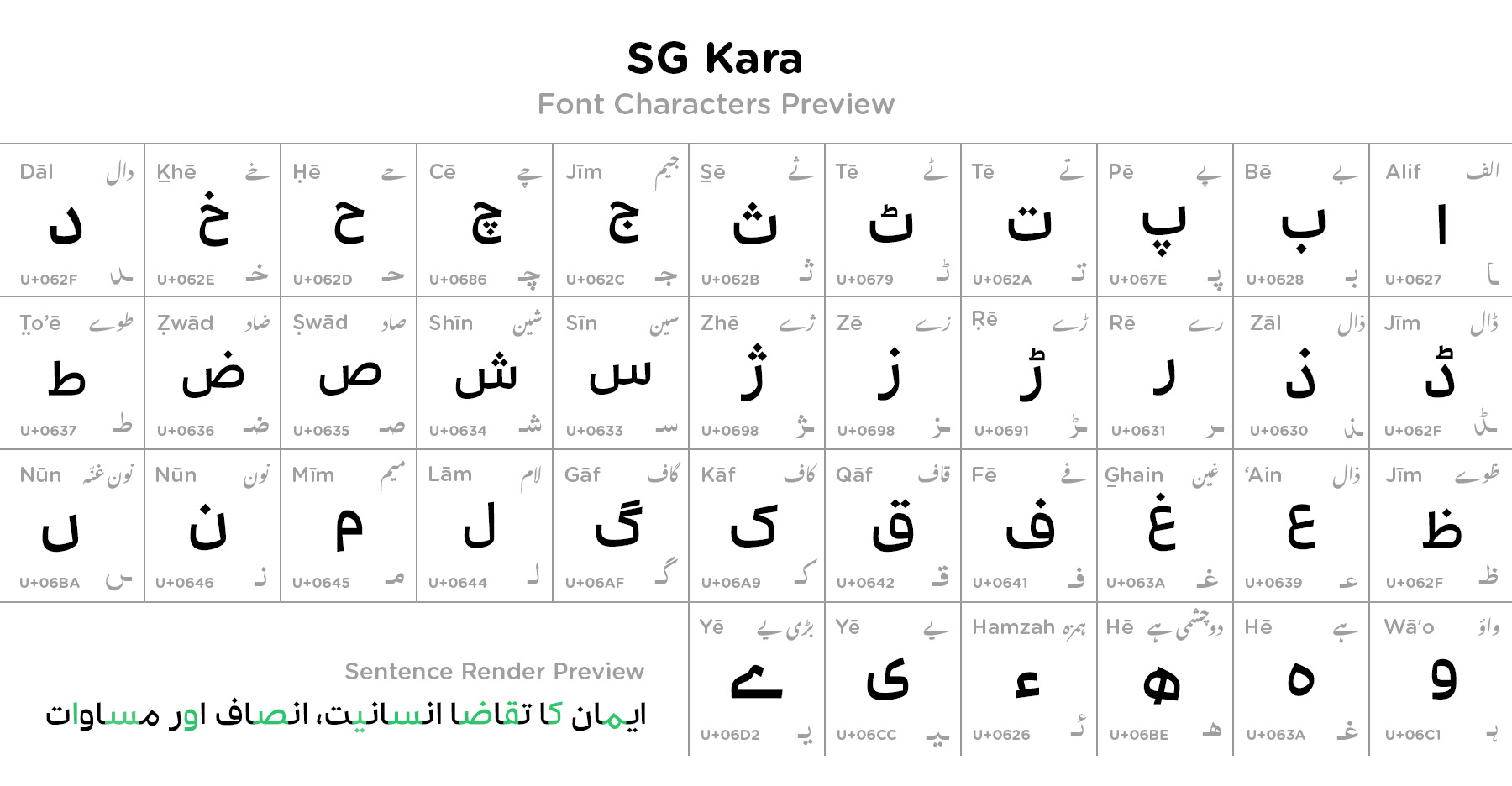
SG Kara
SG Kara is a modern Arabic font that combines elegance and readability. This makes it a great choice for both digital and print designs. Damoon Khanjanzadeh is the designer of this font. The font has smooth and rounded edges that give it a soft and approachable look. It maintains a balanced stroke weight. The letters are modern and traditional. SG Kara has a friendly and clean design, making it suitable for branding and advertising. The curves and loops are very beautiful. It is available in 3 different weights, including:
SG Kara Light
SG Kara Regular
SG Kara Semi bold
It can be used for branding, logos, headlines, titles, advertising, marketing purposes, social media graphics, web design, digital purposes, and much more. The font gives a modern, friendly, and professional vibe. The rounded letters create a sense of softness and approachability. SG Kara is an excellent modern Arabic font that balances style, readability, and versatility. Its clean and stylish look makes it a reliable and attractive choice for most of your uses.